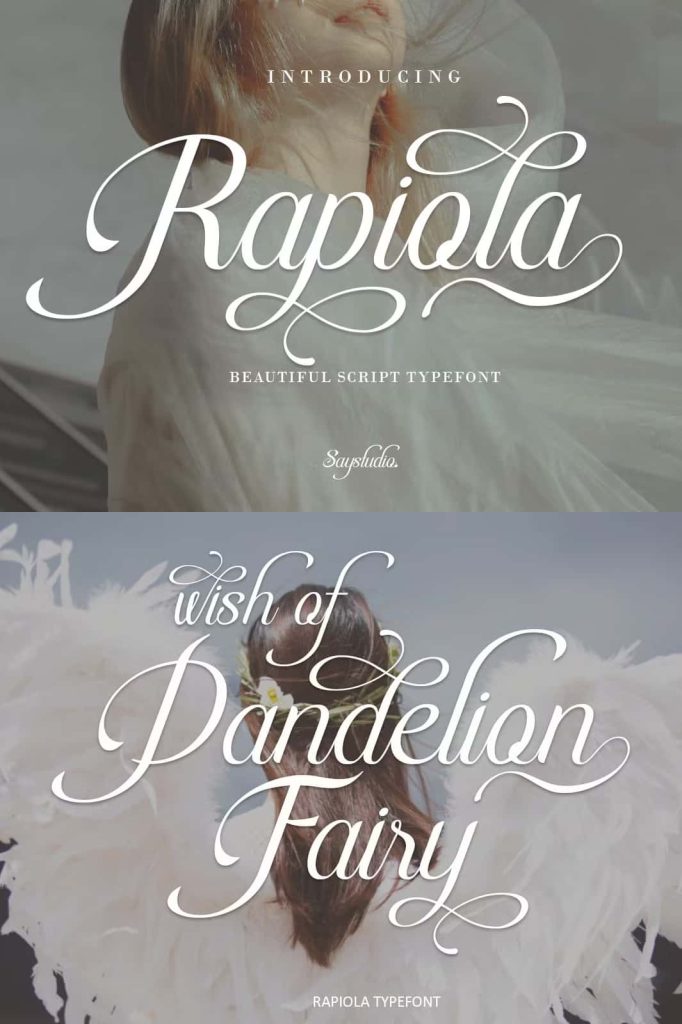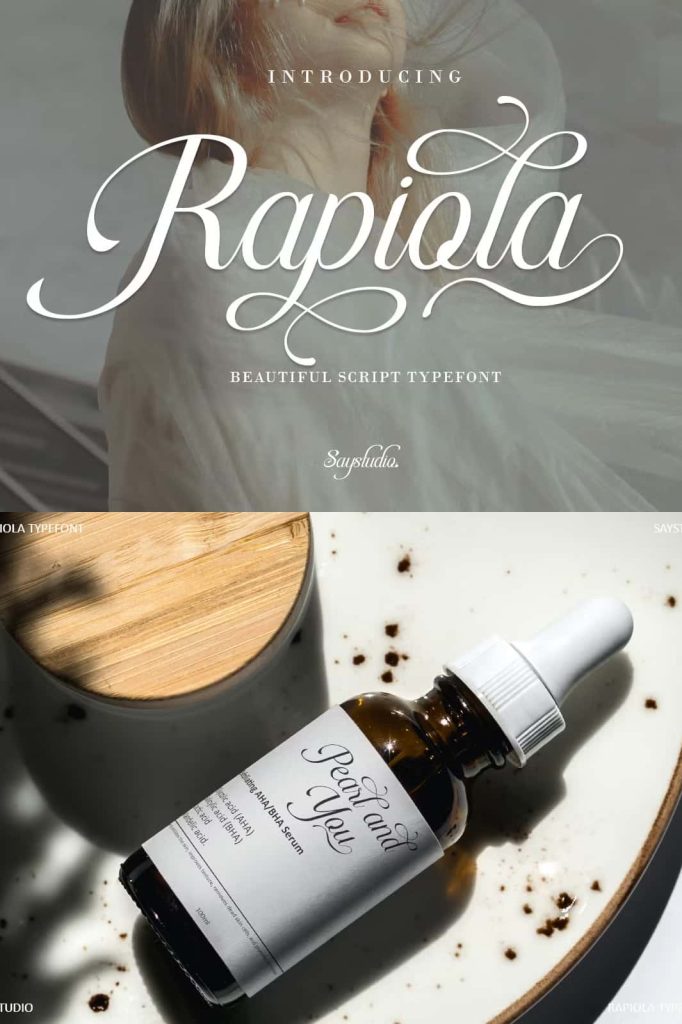
Rapiola – Elegant Script FontleastedFebruary 4, 2025Fonts Rapiola is a elegant inspired calligraphy script font, perfect for that elegant touch needed Download